19 Must-Have Fonts Every Designer Needs in 2026
Let’s be honest: staring at a massive drop-down menu of typefaces is the ultimate productivity killer. We have all been there, scrolling endlessly to find that one perfect font that hits the sweet spot between readable and visually stunning. As typography trends shift and minimal brutalism mixes with nostalgic serifs, having a reliable toolkit is more important than ever. To save you from decision fatigue, I have put together a handpicked list of 19 incredible fonts for designers in 2026. Whether you are working on a sleek app interface, a massive branding overhaul, or just updating your personal portfolio, these typefaces are guaranteed to give your next project that professional polish without the usual headache.
1. Bright Darling Duo Script font
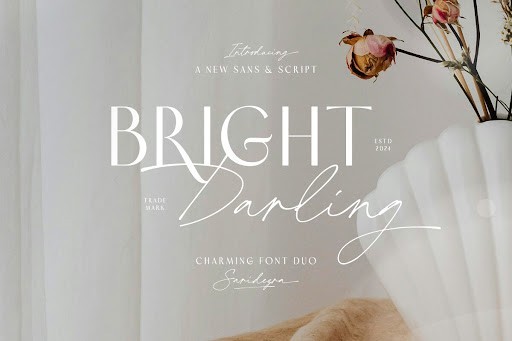
Bright Darling Duo brings an exceptional level of versatility to a designer’s toolkit. By pairing a beautifully flowing script with a complimentary, structured secondary typeface, it takes the guesswork out of font matching. I often find that discovering the perfect typographic pairing can take hours, but this duo delivers an instant, cohesive aesthetic straight out of the box. The script features natural, organic strokes that feel genuinely handcrafted, while the accompanying typeface anchors the overall design with clean, legible lines.
When integrating Bright Darling Duo into your workflow, it truly shines in branding packages, wedding invitations, and boutique packaging. My practical advice is to use the script for primary logos or standout headers, and leverage the secondary font for subheadings or supporting text to maintain a balanced visual hierarchy. It is also incredibly effective for social media graphics where you want to convey elegance and approachability without sacrificing readability across various mobile screen sizes.
2. Maglite Serif font
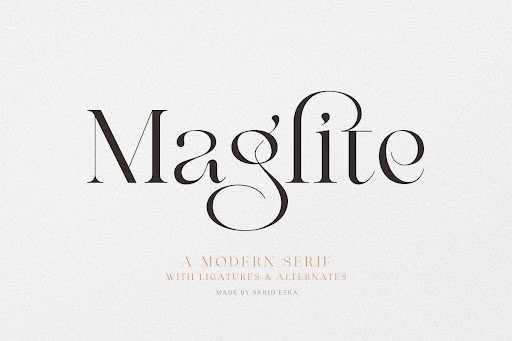
Maglite is a masterful serif typeface that demands attention through its elegant, high-contrast letterforms. It beautifully straddles the line between classic editorial charm and modern sophistication, making it a standout choice for contemporary design projects. The sharp serifs and refined curves provide a luxurious texture to the text, ensuring that any heading or title feels instantly premium. I am consistently impressed by how well it holds its crisp edges, even when scaled to massive proportions for impactful display purposes.
If you are working on editorial layouts, high-end fashion branding, or luxury packaging, Maglite is an absolute must-have asset. To get the most out of this typeface, I recommend giving it plenty of breathing room; generous letter-spacing in all-caps headers can dramatically elevate its sophisticated vibe. While it excels as a display font, it is best to avoid using it for dense, long-form body copy, as the dramatic contrast between thick and thin strokes can cause eye fatigue at smaller point sizes.
3. Cloudy Aurora Handwritten font
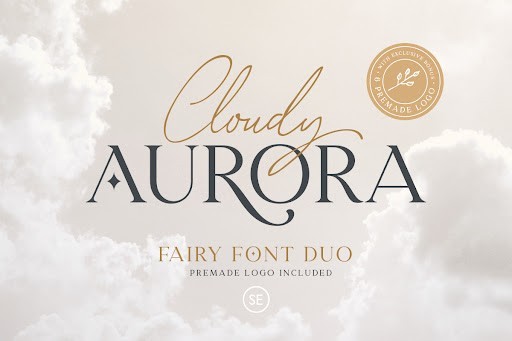
Cloudy Aurora captures the effortless charm of modern handwritten typography, bringing a warm, personal touch to digital canvases. What makes this font particularly special is its slight irregularity—the baseline dances just enough to feel authentically human, avoiding the sterile perfection that often plagues digital scripts. The strokes perfectly mimic the varied pressure of a real ink pen, giving your designs a tactile, crafted sensibility that audiences naturally resonate with on a personal level.
This handwritten gem is practically tailor-made for lifestyle blogs, organic product packaging, and intimate event stationery. From a practical standpoint, Cloudy Aurora pairs gorgeously with strict geometric sans-serifs, creating a striking contrast between structural minimalism and flowing human expression. Make sure to take full advantage of any included stylistic alternates or ligatures, as these subtle variations are the secret to making the typography look completely custom and bespoke rather than typed off a keyboard.
4. Martha Esthela Script font
Martha Esthela is a breathtaking script font that exudes romance and traditional calligraphy, seamlessly translated for the modern digital design landscape. It features dramatic swashes, sweeping ascenders, and an unmistakable fluidity that instantly elevates any layout it graces. The craftsmanship in the connecting strokes is flawless, ensuring that words flow continuously without any awkward breaks or frustrating spacing issues. It possesses a timeless elegance that feels both incredibly opulent and beautifully restrained.
Designers will find Martha Esthela indispensable for formal invitations, luxury real estate branding, and premium wine or spirits labels. When working with this script, my top piece of advice is to utilize it strictly as a display element—think names, primary titles, or signature marks. Pairing it with a highly legible, classic serif font will ground your design, allowing Martha Esthela’s elaborate flourishes to take center stage without overwhelming the reader’s eye or muddling the overall composition.
5. Blank Zones Sans Serif font
Blank Zones is a contemporary sans-serif powerhouse that delivers maximum impact through its bold, unyielding geometry. It embodies a modern, industrial aesthetic that commands space on the page or screen. The letterforms are constructed with precise, confident lines, offering exceptional readability and a refreshingly clean, minimalist profile. What truly sets Blank Zones apart is its raw versatility; it strips away all unnecessary decorative elements to focus entirely on structural clarity and modern typographic strength.
I highly recommend Blank Zones for tech startups, athletic branding, and striking editorial headlines where you need to make a bold statement. Its robust weight makes it absolutely perfect for masking techniques in UI design, where you might want to clip an image or looping video inside the text itself. For the best results, try using it in tight layouts with minimal leading for a dense, punchy poster-style effect, or space it out generously in navigation menus to achieve an ultra-modern, airy user interface.
6. Rustic Display font
When you are looking to inject an organic, raw feel into your branding, the Rustic font stands out as an exceptional choice. Designed by Sigit Dwipa, this typeface perfectly captures the essence of the great outdoors and handmade craftsmanship. Its textured edges and slightly uneven baseline give it a beautifully imperfect charm that instantly resonates with audiences looking for authenticity. Whether you are working on packaging for an artisanal coffee roaster or designing apparel for an eco-friendly lifestyle brand, this font brings a grounded, natural aesthetic to the table.
From a practical design standpoint, Rustic performs brilliantly across both print and digital mediums, remaining highly legible even with its distressed characteristics. I highly recommend pairing it with a clean, understated sans-serif to create a balanced typographic hierarchy. It is an absolute powerhouse for logo design, rustic wedding invitations, and striking social media graphics in 2026. As it comes with a full commercial license, freelance designers and agency professionals alike can confidently deploy it in high-stakes client projects.
7. Graffiti Hipster Display font
Injecting authentic street culture into digital design requires a typeface that balances chaos with readability, and the Graffiti Hipster font delivers exactly that. This bold, urban-inspired display font captures the rebellious, energetic strokes of spray-can art while maintaining the structural integrity needed for professional commercial work. It is an indispensable tool for designers tasked with building streetwear brands, edgy music festival promotions, or modern lifestyle campaigns. The raw energy of the letterforms commands attention, making it incredibly effective for hero banners and statement typography.
To get the most out of Graffiti Hipster, I suggest using it primarily for large-scale headers and short, punchy copy rather than long-form text. It pairs beautifully with neon color palettes, gritty halftone textures, and brutalist web layouts that dominate the 2026 design landscape. Because it is fully optimized for Windows, Mac, and Linux, it integrates flawlessly into any modern creative workflow. If your goal is to push boundaries and create designs that refuse to be ignored, this urban typeface is a must-have addition to your asset library.
Download Elevate Your Creative Projects with the Graffiti Hipster Font
8. Vintage Fashion Serif font
Capturing the elegance of bygone eras requires a delicate typographic touch, and the Vintage Fashion font masters this nostalgic sophistication flawlessly. This exquisite serif typeface evokes the golden age of high-end editorial magazines, featuring high-contrast strokes and beautifully tailored ligatures. It is a brilliant asset for designers working within the luxury sector, bringing an immediate sense of prestige and timelessness to boutique branding, perfume packaging, and haute couture lookbooks. The refined curves and sharp serifs work in perfect harmony to elevate any composition.
In practical application, Vintage Fashion shines brightest when given plenty of breathing room. Generous tracking and ample white space allow its intricate details to truly stand out. It makes for stunning editorial headlines and sophisticated logo marks, particularly when set in rich, muted tones like deep emerald, burgundy, or classic gold foil. Updated for 2026 to ensure crisp rendering across high-resolution displays, this commercially licensed font provides the premium feel necessary to impress top-tier clients and elevate your portfolio.
9. Rainbow Beauty Script font
Finding a script font that is both whimsical and highly legible can be a challenge, but Rainbow Beauty strikes that balance with effortless charm. This flowing, handwritten-style typeface brings a joyful, personalized touch to any creative project. Its sweeping ascenders and bouncy baseline give it a dynamic rhythm that feels genuinely crafted by hand rather than generated by a machine. This makes it an absolute favorite for lifestyle bloggers, indie cosmetic brands, and childrens apparel designers who want to convey warmth, approachability, and creative flair.
When deploying Rainbow Beauty in your layouts, it works wonderfully as an accent font alongside a crisp, geometric sans-serif to keep your overall design grounded. I frequently use it for standout pull quotes, playful packaging labels, and engaging social media overlays. The 2026 update ensures that all the swashes and alternative characters connect smoothly without any awkward gaps, streamlining your typography work. With its inclusive commercial license, you can confidently infuse a cheerful, bespoke energy into all of your client deliverables.
10. Business Signature Handwritten font
Every designer needs a reliable, sophisticated autograph-style typeface in their arsenal, and the Business Signature font is an exemplary choice for modern professionals. Designed to mimic the swift, elegant strokes of a fountain pen, this handwritten font exudes confidence and exclusivity. It is specifically tailored for high-end corporate identities, luxury real estate branding, and bespoke photography watermarks. By integrating this typeface into your projects, you instantly provide a personalized yet authoritative voice that resonates with premium clientele.
For the best results, use Business Signature in contexts where a personal guarantee or a touch of intimacy is required. It looks spectacular on premium textured business cards, elegant email signatures, and luxury product packaging. The key to mastering this font is moderation; let it serve as a striking focal point against a backdrop of clean, minimalist typography. Fully updated for 2026 and armed with a commercial license, this versatile font guarantees that your professional branding projects remain sharp, contemporary, and incredibly distinguished.
11. Abang Fashion Display font
Abang Fashion is an absolute masterclass in editorial typography, purposefully crafted to elevate any luxury or high-street brand. Its letterforms boast a sophisticated interplay of thick and thin strokes, immediately commanding attention while retaining an air of effortless elegance. In a design landscape where high-end aesthetics demand perfection, this typeface delivers crisp edges and beautifully balanced proportions that feel both timeless and boldly contemporary.
From a practical standpoint, this font truly shines when given plenty of breathing room. It is the perfect anchor for glossy magazine covers, upscale cosmetic packaging, and minimalist boutique logos. When using Abang Fashion, I highly recommend pairing it with a deeply understated sans-serif for your body copy—this ensures your main headers steal the show without overwhelming the reader’s eye.
12. Modern Aesthetic Sans Serif font
Embodying the clean, understated visual language that dominates modern design, Modern Aesthetic is a sans-serif powerhouse that prioritizes clarity above all else. The geometric precision of its characters offers a striking neutrality, allowing your brand’s imagery and core message to take center stage. What makes this typeface stand out is its flawless kerning and perfectly measured x-heights, ensuring impeccable readability across both massive billboard displays and compact mobile screens.
This font is an essential toolkit addition for designers working with tech startups, lifestyle brands, or digital portfolios that require a sleek, forward-thinking vibe. To maximize its impact, lean heavily into negative space and high-contrast color palettes. Whether you are laying out an intuitive user interface or designing an architectural firm’s brochure, Modern Aesthetic provides the reliable, polished foundation you need.
13. Fashion Stencil Display font
Bridging the gap between gritty industrialism and high couture, Fashion Stencil offers a brilliantly edgy take on traditional display typography. The strategic breaks in the letterforms do more than just create a stencil effect; they add a dynamic visual rhythm that pulls the viewer’s eye straight across the text. It is bold, unapologetic, and infused with an urban sophistication that completely disrupts standard, overly delicate fashion fonts.
You will want to deploy this typeface specifically for large-scale headers where its intricate details can be fully appreciated. It is an outstanding choice for streetwear apparel design, striking promotional posters, and disruptive editorial layouts. Keep your surrounding design elements minimal to let the structural beauty of Fashion Stencil serve as the primary focal point of your composition.
14. Vintage Mohai Retro font
Vintage Mohai is a glorious love letter to the typography of yesteryear, capturing the warm, nostalgic charm of classic signage and mid-century advertising. The font features beautifully weighted curves and just a hint of artisanal flair, making it feel distinctly handmade and authentic. In an era where consumers crave genuine connection and heritage, this typeface provides an instant sense of established trust and old-school craftsmanship.
This retro gem is perfectly suited for passion projects and boutique businesses alike. I frequently reach for this style when branding craft breweries, artisan coffee roasters, or organic grooming products. For the best results, experiment with slightly muted, vintage color palettes like mustard yellows, deep navies, or burnt oranges, which perfectly complement the font’s inherently historical character.
15. Japan Bento Display font
Bursting with lively character and cultural charm, Japan Bento is a playful display font that brings an immediate sense of joy to any canvas. Its subtle brush-like nuances and bouncing baseline draw inspiration from traditional Asian typography while remaining entirely modern and accessible. The font avoids taking itself too seriously, prioritizing a friendly, approachable energy that instantly resonates with audiences looking for something fresh and upbeat.
Designers will find Japan Bento incredibly versatile for projects that need a splash of personality. It is a fantastic go-to for casual dining menus, vibrant food packaging, animated YouTube thumbnails, and local festival branding. Because the letterforms are so inherently energetic, it pairs beautifully with clean, monolinear sans-serifs that ground the overall layout while letting the display headers dance.
16. Baket Fashion Display font
When it comes to editorial design in 2026, the Baket Fashion font by Sigit Dwipa has quickly emerged as a must-have tool for art directors and brand designers. This typeface strikes a brilliant balance between classic elegance and modern edge, making it an exceptional choice for high-end fashion magazines, boutique branding, and luxury packaging. The high-contrast strokes and distinctive serifs demand attention while retaining exceptional readability, even when layered over complex photographic backgrounds. As a seasoned designer, I appreciate how the character set offers just enough stylistic alternates to give headlines a bespoke, customized feel without overwhelming the core typographic structure.
In practical application, Baket Fashion truly shines in display settings rather than dense body copy. I highly recommend pairing it with an understated, geometric sans-serif to create a sophisticated visual hierarchy that guides the reader’s eye effortlessly down the page. Whether you are designing an avant-garde lookbook or crafting the visual identity for a premium cosmetics line, leveraging the generous kerning options with this font will elevate your layout from standard to striking. The commercial license ensures seamless integration across both digital and print campaigns, making it a highly versatile asset for any serious creative professional’s library.
17. Retro Vintage Serif font
Tapping into the enduring nostalgia trend of 2026, the Retro Vintage font by Sigit Dwipa offers an incredibly authentic blast from the past for today’s digital design landscape. Unlike many vintage-inspired typefaces that rely heavily on artificial distress textures, this font achieves its old-school charm through masterful letterforms and meticulously balanced weight distribution. It channels the golden era of mid-century advertising and classic sign-painting, making it an absolute powerhouse for apparel design, artisanal coffee shop branding, and retro-themed event posters. The subtle curves and sturdy base give each word a hand-crafted, approachable personality that instantly builds a connection with the audience.
For best results in your workflow, I suggest using Retro Vintage in large, impactful headlines where its unique character nuances can be fully appreciated. It pairs beautifully with warm, muted color palettes and subtle grain overlays to complete that highly sought-after analog aesthetic. If you are working on a heritage brand revival or creating custom merchandise, utilizing the included swashes and ligatures will add that necessary touch of custom typography. Its comprehensive support across Windows, Mac, and Linux, combined with a commercial license, means you can confidently roll out major campaigns without any technical or legal friction.
18. Galmoru Sans Serif font
The Galmoru font by Sigit Dwipa is a testament to the power of minimalist typographic design, standing out as a premier sans-serif option for contemporary creatives in 2026. What makes Galmoru so compelling is its flawless geometric precision combined with a subtle warmth that prevents it from feeling too sterile or corporate. The letterforms are wide and breathable, bringing an airy, ultra-modern aesthetic to user interfaces, editorial spreads, and sleek tech branding. It is the kind of workhorse typeface that looks just as stunning on a massive billboard as it does scaled down on a mobile app interface, making it an invaluable asset for responsive digital design.
From a practical standpoint, Galmoru thrives in environments where clarity and modern sophistication are paramount. I frequently recommend it for corporate identity systems and digital portfolios because its exceptionally balanced x-height ensures maximum legibility across all screen resolutions. To push your designs further, try utilizing the lighter weights for elegant body copy and the bolder weights for punchy, definitive headers. Pairing Galmoru with a highly stylized display font can create a stunning tension in your layouts, providing a grounded foundation that allows more expressive design elements to shine.
19. Fashion Wacks Script font
Injecting a dose of fluid, expressive energy into the 2026 typographic scene, the Fashion Wacks font by Sigit Dwipa is a spectacular script typeface designed for the bold and the creative. This font breaks away from overly rigid cursive styles, offering a dynamic, handwritten flow that feels spontaneous yet masterfully controlled. The sweeping ascenders and dramatic loops make it a go-to choice for signature logos, lifestyle blog headers, and high-impact social media graphics. It perfectly captures that chic, effortless aesthetic that luxury influencers and modern boutique brands are constantly striving to achieve in their visual communications.
When deploying Fashion Wacks in your own projects, it is crucial to give the lettering plenty of negative space to breathe. Because of its flamboyant nature, it works best as an accent typeface rather than being used for extended paragraphs of text. I advise pairing it with a clean, understated sans-serif to ensure your core message remains legible while the script font handles the visual heavy lifting. Taking advantage of the extensive glyph palette will allow you to customize the beginning and ending strokes of your words, resulting in a finalized design that looks like custom, high-end calligraphy rather than a standard commercial font.
And there you have it—19 standout typefaces ready to handle whatever your creative briefs throw at you this year. Building a strong library of fonts for designers is not just about hoarding cool letters; it is about having practical, versatile tools at your fingertips when deadlines get tight. Whether you gravitate toward the clean geometric sans-serifs or the moody, high-contrast serifs, these picks for 2026 will definitely keep your work looking fresh. Try sneaking a few of these into your next mockup, and watch how quickly the right typography can bring a design together. Let me know in the comments which font you are downloading first!